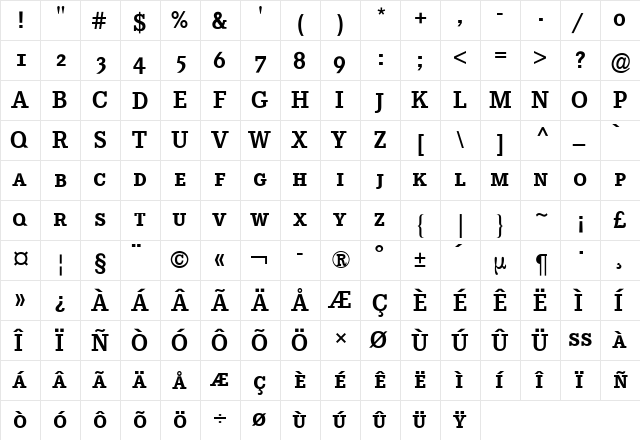
Corporate E Expert BQ Bold Font Preview
Corporate E Expert BQ Bold
Design Context for Corporate E Expert BQ Typeface
Corporate E Expert BQ is a composed and adaptable typeface that performs quietly and consistently across a wide range of design contexts. The heavy weight commands attention and anchors typographic hierarchies.